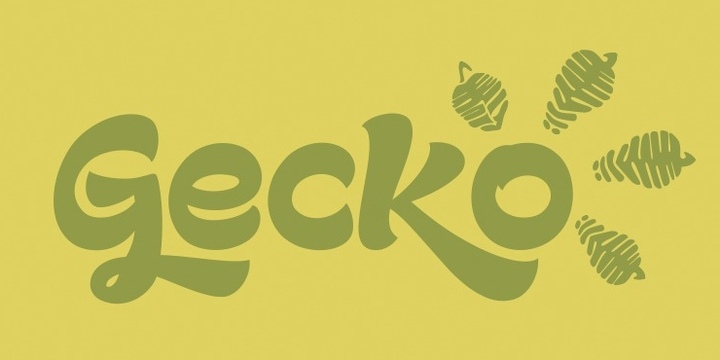
Gecko Font
Gecko Font is perfect for organic product branding, eco-friendly packaging, nature-inspired logos, tropical resort marketing, adventure tourism materials, and sustainable business communications. This distinctive typeface excels in environmental campaigns, outdoor recreation branding, botanical illustrations, and any application where natural charm and adaptive versatility create authentic connections with environmentally conscious audiences.
What makes Gecko Font so exciting is its remarkable ability to capture the adaptive nature and organic beauty of its reptilian namesake through fluid, flexible letterforms. The font features smooth curves, natural variations, and subtle textural qualities that evoke the effortless grace of gecko movement. Its versatile character adapts seamlessly to different design contexts while maintaining its distinctive organic personality and environmental authenticity.
Gecko Font comes in an adaptive family including Light, Regular, Medium, Bold, and Heavy weights. Each style features complete uppercase and lowercase character sets, nature-inspired symbols, organic numerals, and environmental punctuation marks. The font family also includes textural alternates, flowing ligatures, and natural variations that allow designers to create truly organic typographic compositions with authentic character.
The font's organic character makes it particularly effective for environmental organizations, sustainable lifestyle brands, outdoor adventure companies, and health-conscious businesses. Its excellent adaptability ensures that Gecko Font performs beautifully across diverse applications while maintaining its distinctive natural charm. The font's ability to evoke environmental awareness and natural authenticity makes it an invaluable tool for any project seeking to communicate genuine connection with nature and commitment to sustainable practices.